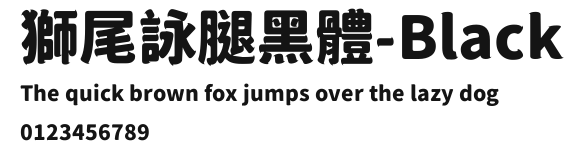
獅尾詠腿黑體-Black Preview
• Font Name: 獅尾詠腿黑體-Black
• Font Style: Black
• Full Font Name: 獅尾詠腿黑體-Black
About 獅尾詠腿黑體-Black.ttf
獅尾詠腿黑體-Black.ttf is a modern, elegant sans-serif font designed for ultimate readability and visual harmony. Perfect for branding, headlines, web design, and print materials.